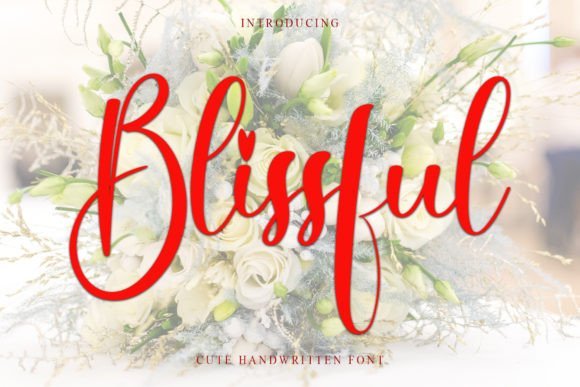
Find Your Creative Bliss with the Perfect Font
Have you ever sat at your desk, staring at a blank page, and suddenly, a burst of inspiration hits you? You envision the perfect design, and the words flow effortlessly onto the screen. This is the moment when creativity knows no bounds, and the possibilities are endless. For designers, this feeling is the ultimate goal, and the right font can be the key to unlocking it.
Enter the Blissful Font, a beautiful and elegant handwritten font that adds a touch of sophistication to any project. With its unique style, this font is perfect for creating stunning designs that stand out from the crowd. Whether you’re a seasoned designer or just starting out, the Blissful Font is an invaluable asset that will elevate your work to new heights.
Key Features of Blissful Font
- Font Family: Blissful Font comes in a single family with multiple weights and styles, including Light, Regular, Bold, and Italic.
- Font Size: Blissful Font supports font sizes ranging from 8 to 72 points, making it suitable for body text, headings, and titles.
- Resolution: Optimized for high-resolution displays, Blissful Font renders smoothly at resolutions up to 400 DPI.
- Unique Characteristics: Blissful Font features a unique blend of modern and elegant design elements, including flowing curves and subtle flourishes.
- Language Support: Blissful Font supports a wide range of languages, including Latin, Cyrillic, Greek, and many non-Latin scripts.
Designer Review: Blissful Font
Overall, I have mixed feelings about the Blissful Font. While it has some lovely aspects, it also has some significant limitations that prevent it from being a top choice for me.
- Soft, elegant curves: The Blissful Font has a beautiful, flowing feel that makes it perfect for designs where you want to convey a sense of calm and serenity.
- Good legibility: Despite its ornate appearance, the font is still easy to read, even at smaller sizes.
- Customizable: The font comes in a range of weights and styles, making it easy to adapt to different design needs.
- Limited versatility: While the font is great for certain types of designs, it may not be the best choice for more technical or information-heavy content.
- Overuse risk: The font’s soft, elegant curves can make it feel overly generic or clichéd if used too extensively.
- Lack of expressiveness: The font’s neutral feel can make it difficult to convey strong emotions or personality through design.
In conclusion, the Blissful Font is a solid choice for designs where you want to create a sense of calm and serenity. However, it may not be the best fit for more complex or technical projects.
Tips for Getting the Most Out of Blissful Font
For the best results, use Blissful Font in conjunction with bold or italic styles to create visual interest.
Use it for headings, titles, or short paragraphs to add a touch of elegance to your designs.
Experiment with different font sizes and colors to find the perfect balance for your project.
Blissful Font is ideal for:
– Editorial and publishing projects
– Digital marketing materials and social media graphics